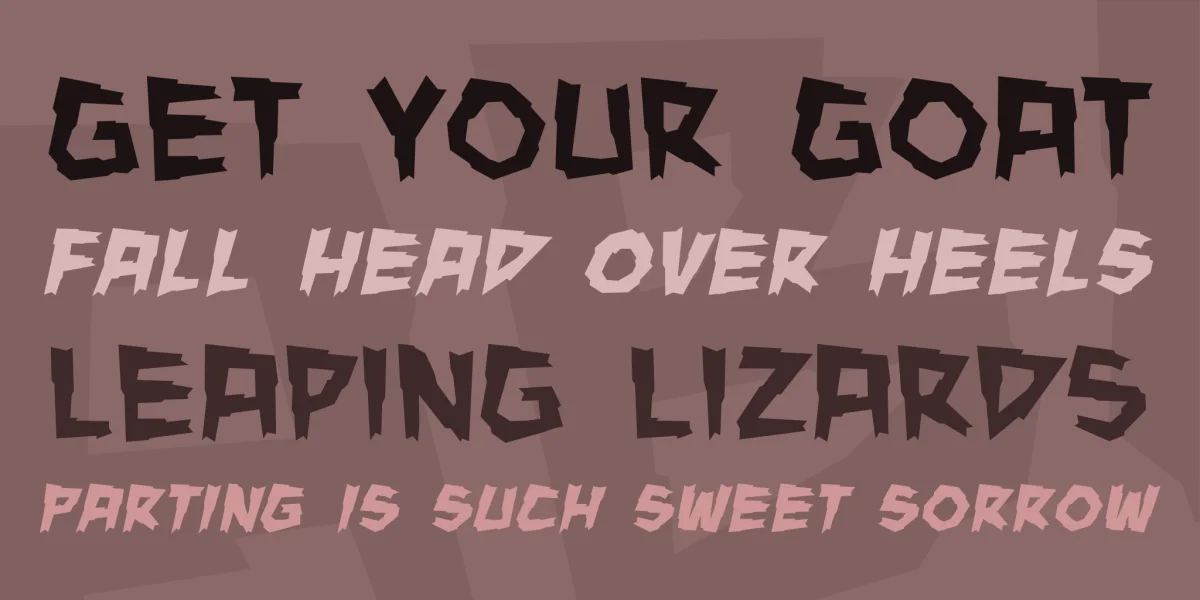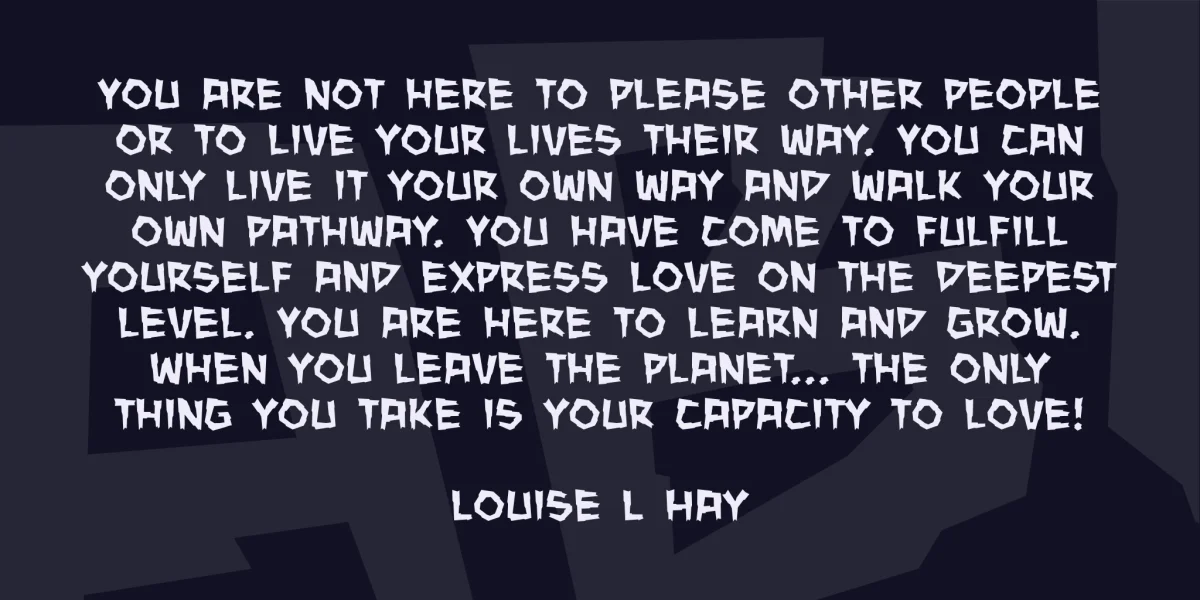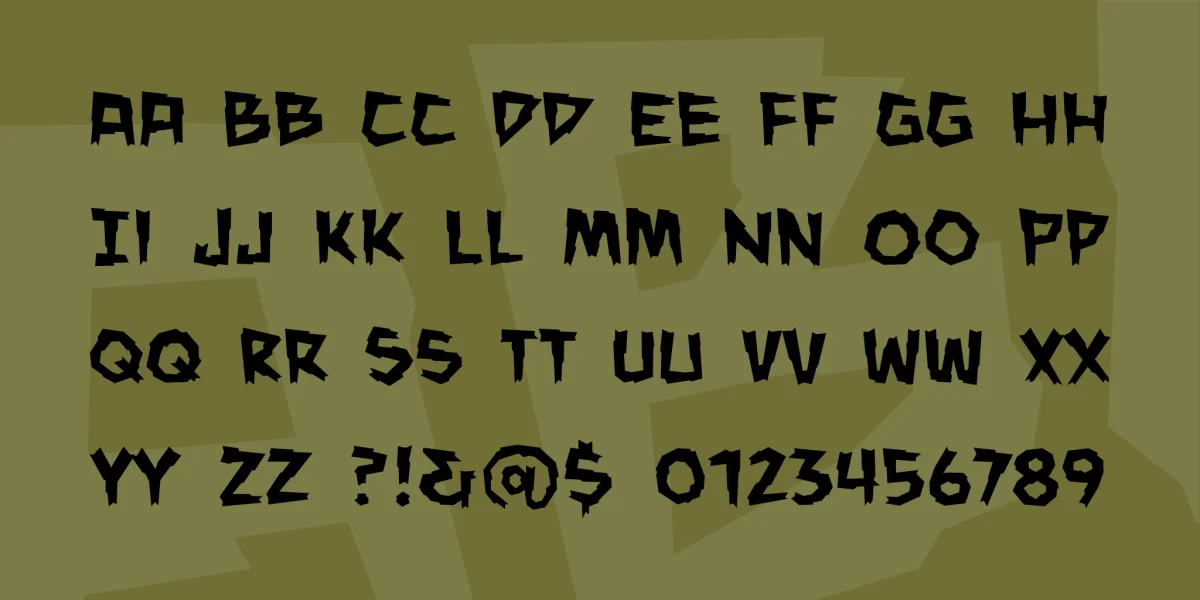
Perfect for that hulking, slobbering beast under your bed – MANEATER is a jagged and creepy, yet simple and legible dialogue font for all your beasties. Comes with Regular and Bold.